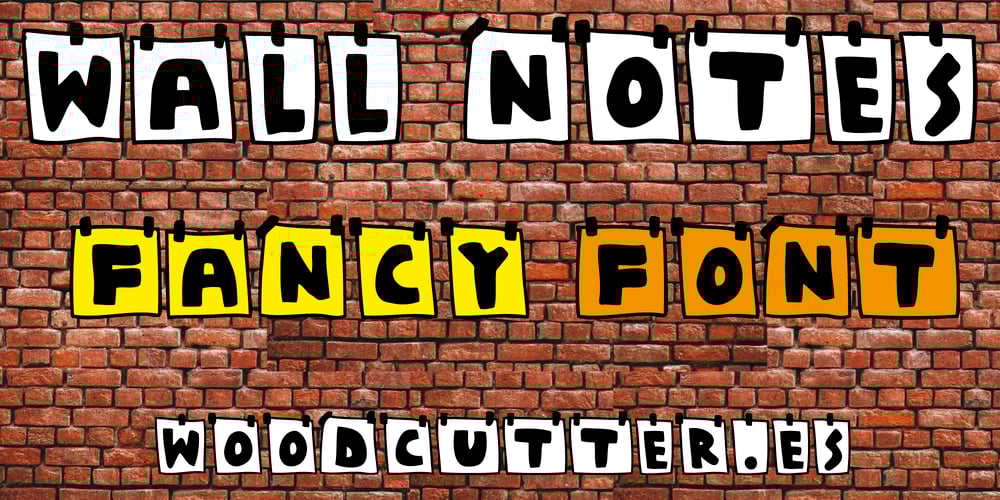
Wall Notes Font Family was designed by Jordi Manero and published by Woodcutter. Wall Notes contains 1 styles and family package options. “Wall Notes” is an all-caps font that imitates paper notes stuck to the wall. Each letter has a handmade style and is enclosed within a rectangle, mimicking the look of a sticky note. Its handcrafted appearance and informal design add a fun and approachable vibe, making it ideal for projects that aim for spontaneity or creativity. Perfect for posters, invitations, or any design that needs a unique and laid-back feel.